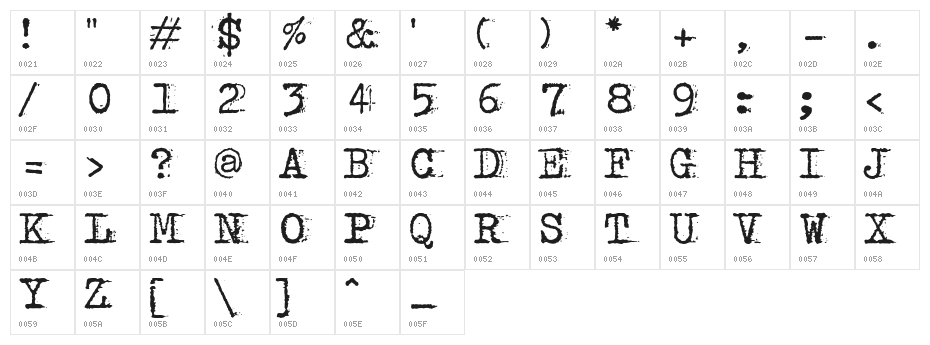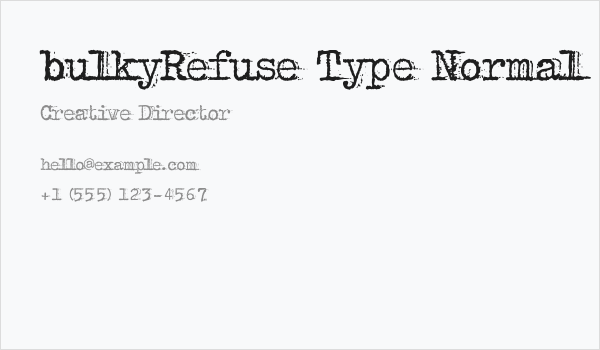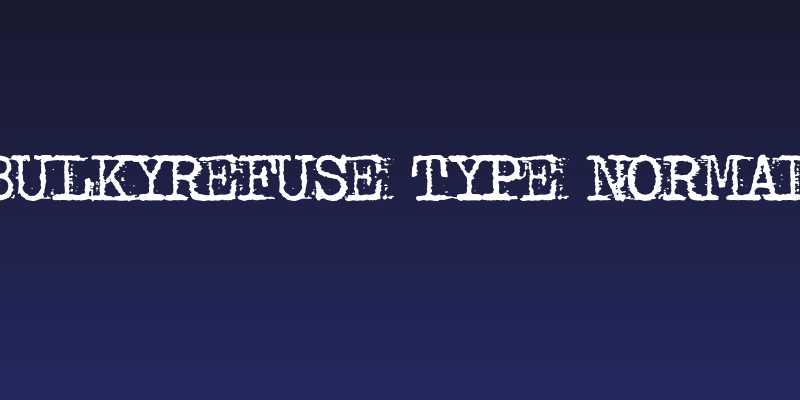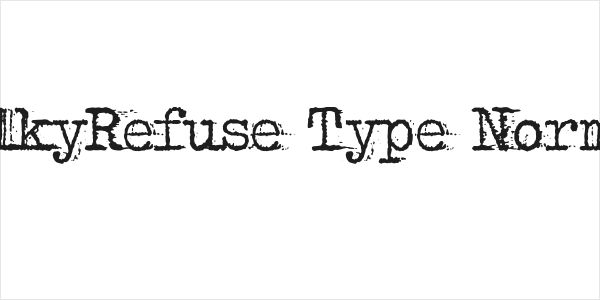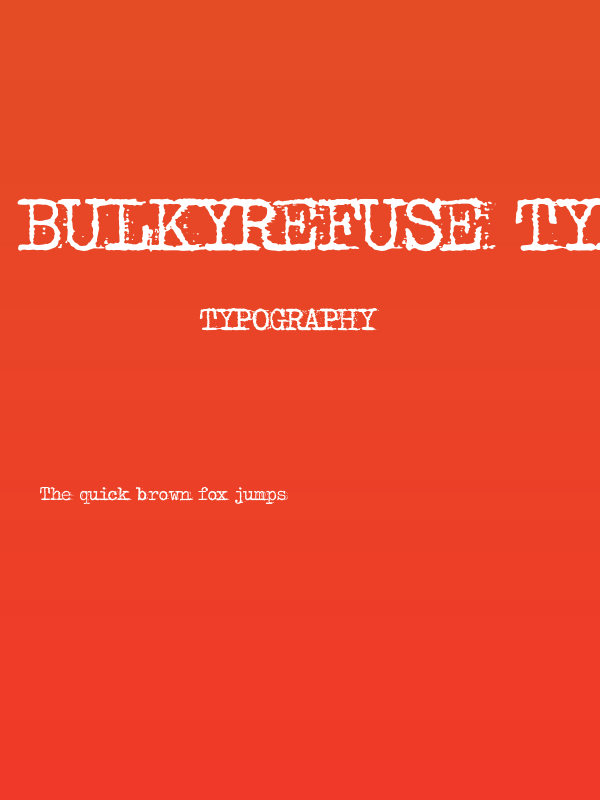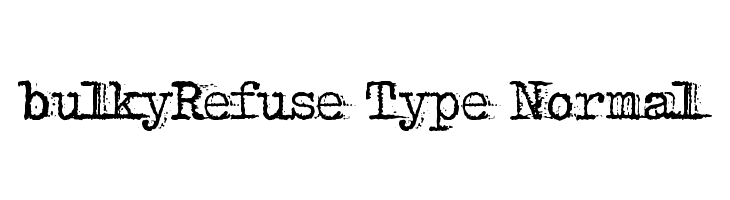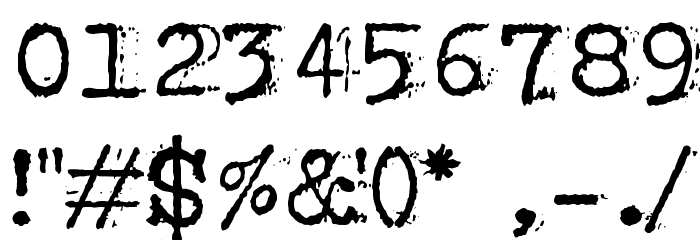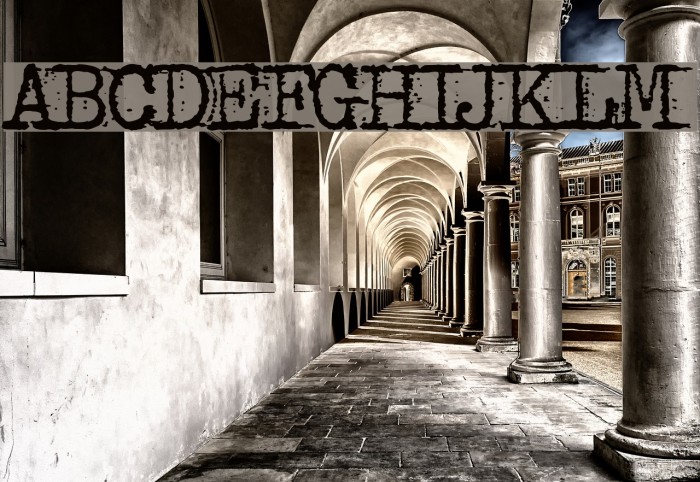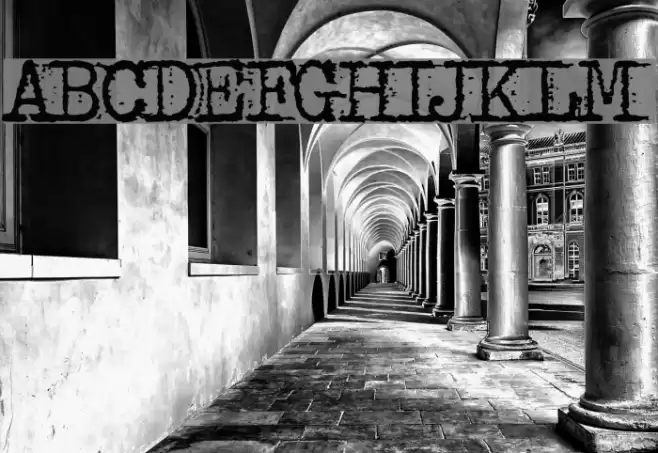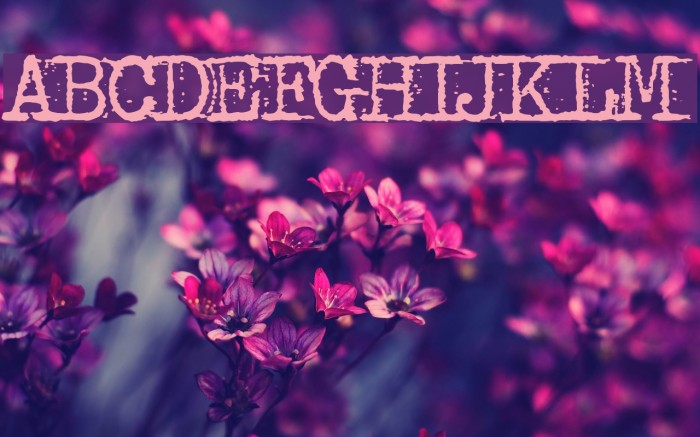
bulkyRefuse Type Normal Font
✎ Typewriter
| Категория | Typewriter |
| Общий стиль | Vintage |
| Рекомендуемые проекты | Ideal for posters, album covers, branding for edgy or retro-themed products, and any design needing a bold, textured typeface. |